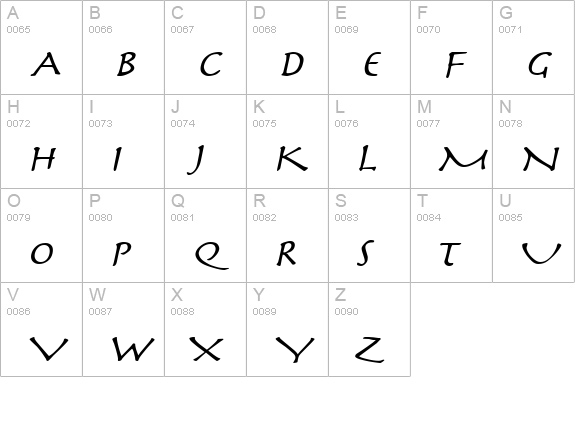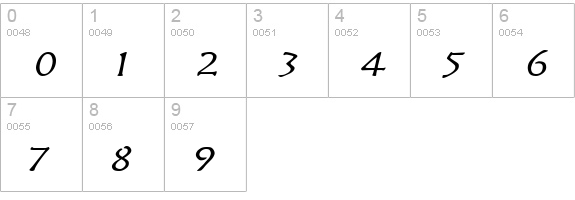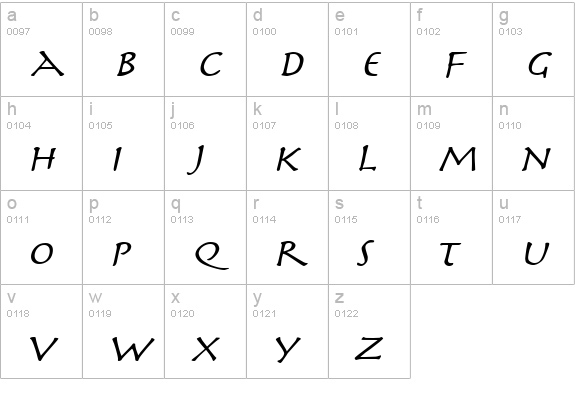
Mythology Wide Italic is a distinctive, extended-width, italic variant in the Mythology typeface family \xE2\x80\x94 well suited to design and typography projects.
Mythology Wide Italic font is a captivating and enchanting typeface that exudes a sense of ancient mystique and timeless elegance. With its gracefully elongated letterforms and subtle slant, this font effortlessly captures the essence of mythological tales and legendary narratives. Its wide proportions add a unique flair to any design, making it perfect for headlines, titles, and branding projects. The Mythology Wide Italic font is not only visually striking but also versatile, making it suitable for a wide range of creative applications. Whether you're working on a fantasy novel cover, a historical documentary, or a mystical website design, this font will bring a touch of magic to your project. Best of all, Mythology Wide Italic font is available for free download at FontsMarket.com. Embrace the enchanting allure of this font and unlock the power of mythology in your designs today.